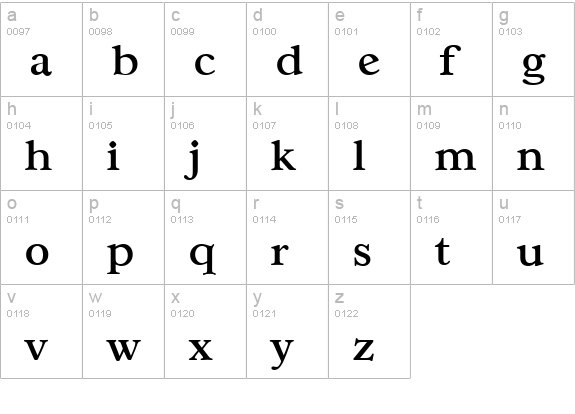
CasablancaSerial-Medium-Regular is a balanced, medium-weight variant in the CasablancaSerial typeface family \xE2\x80\x94 well suited to sub-headlines, navigation, and balanced editorial work.
CasablancaSerial-Medium-Regular font is a classic and versatile typeface that exudes elegance and sophistication. Its clean and modern design makes it perfect for a wide range of projects, from branding to editorial design. The balanced letterforms and sturdy serifs give this font a timeless appeal that is sure to make your text stand out. What's even better is that CasablancaSerial-Medium-Regular font is available for free download at FontsMarket.com. Yes, you heard it right - this stylish font can be yours at no cost! Whether you're a designer looking to add a touch of sophistication to your creations or a business owner in need of a professional font for your marketing materials, CasablancaSerial-Medium-Regular is the perfect choice. Don't miss out on the opportunity to enhance your projects with this elegant and versatile font - download CasablancaSerial-Medium-Regular for free today at FontsMarket.com!